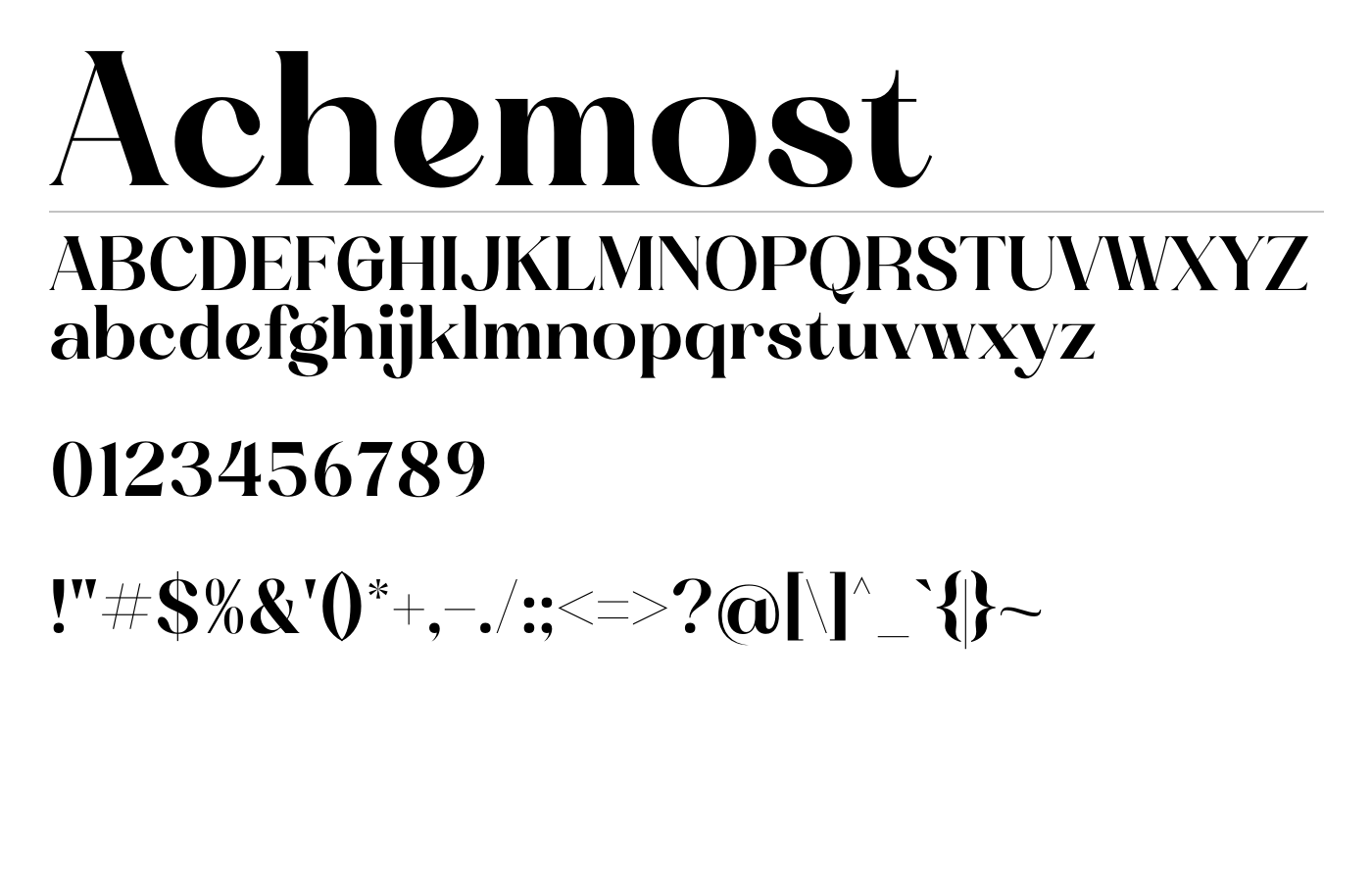
Achemost is a sophisticated serif font with high contrast between thick and thin strokes, featuring elegant, sharp serifs and a modern Didone style. Its refined letterforms and distinctive details give it a luxurious and classic feel, making it ideal for high-end branding, editorial headlines, and fashion packaging where elegance and impact are key.
Achemost Font
About Achemost Font